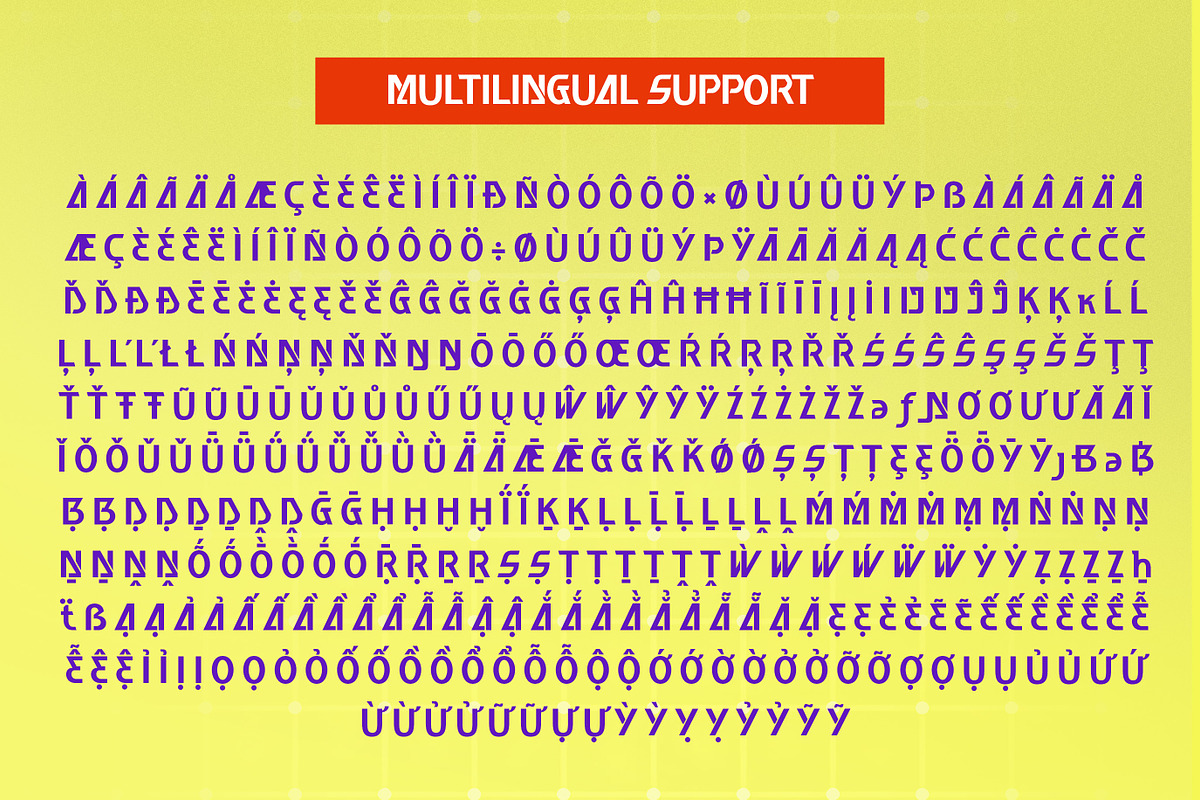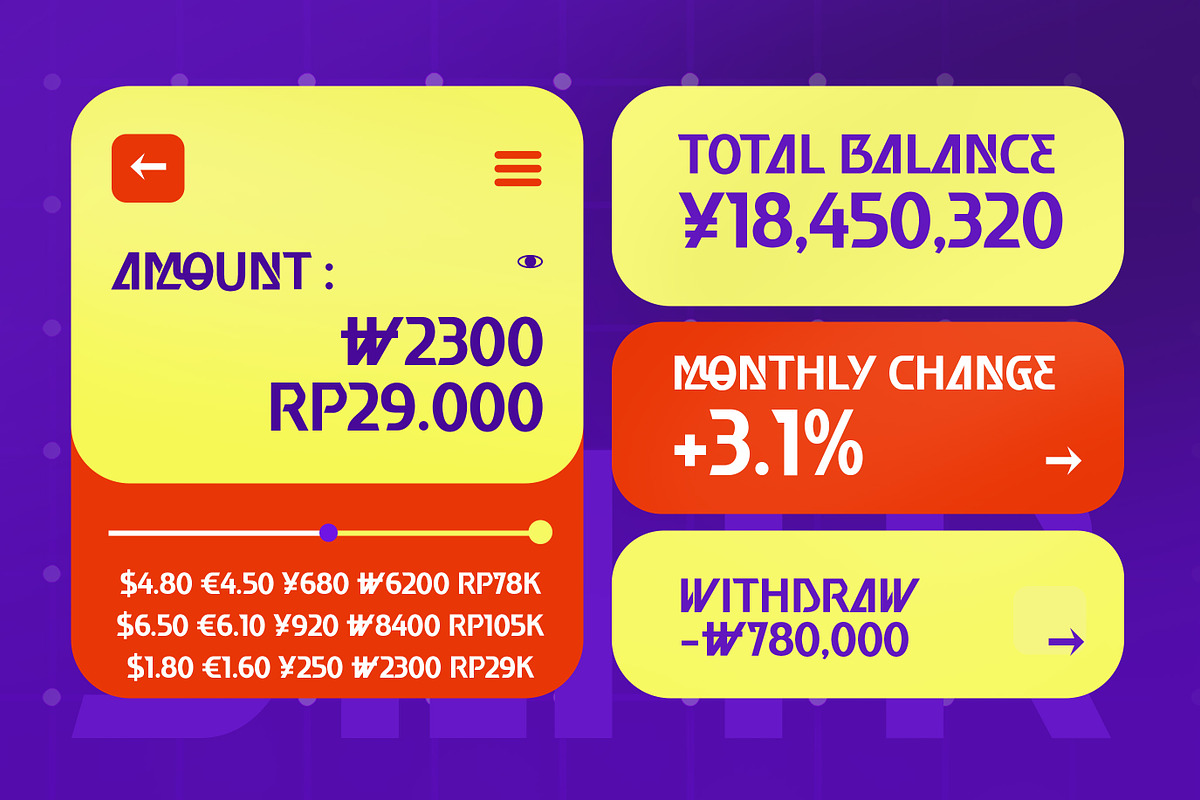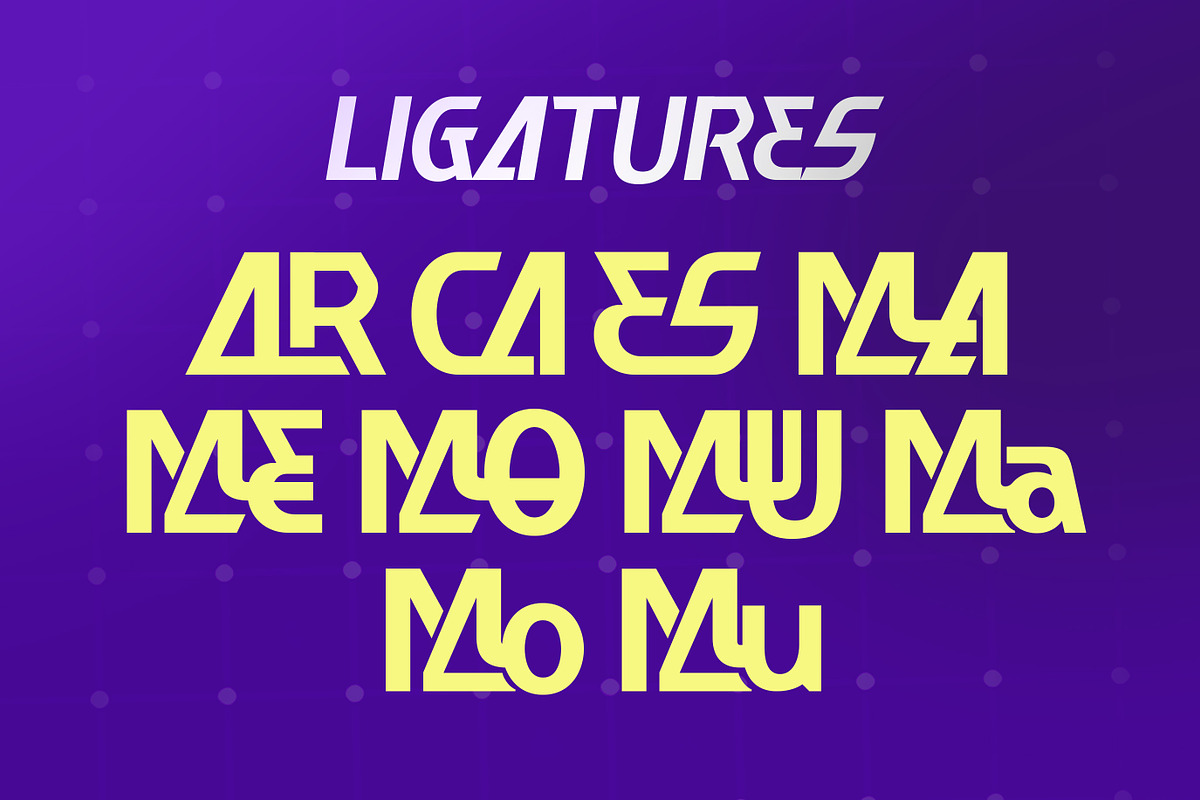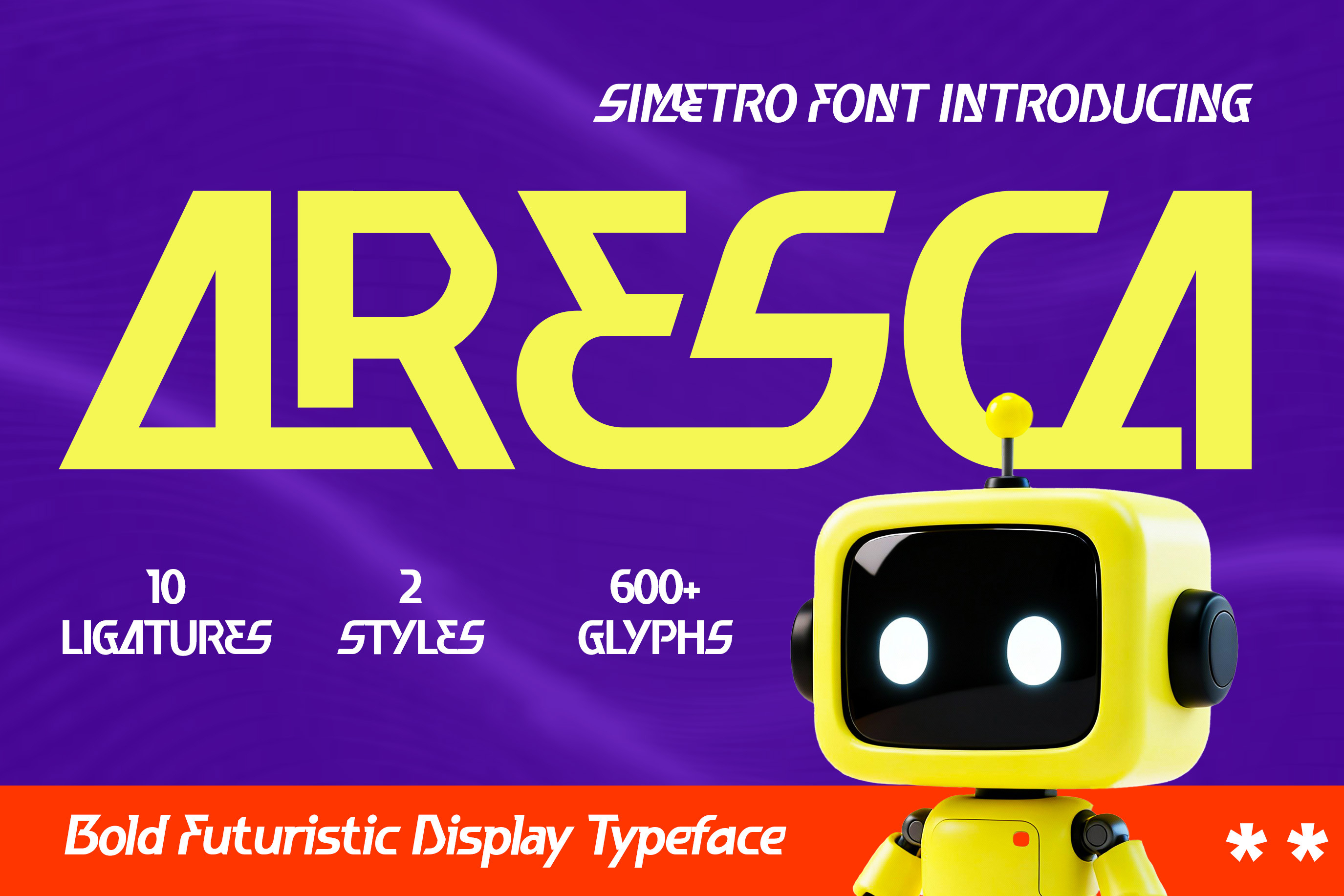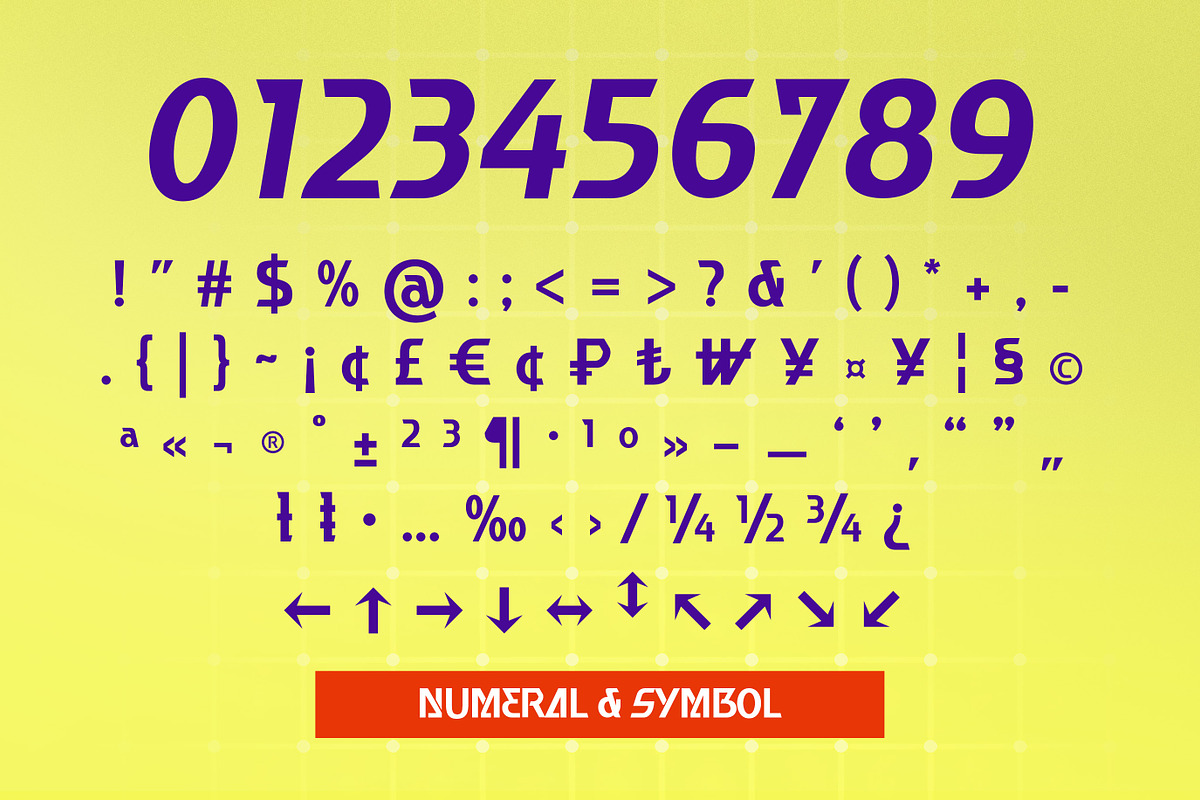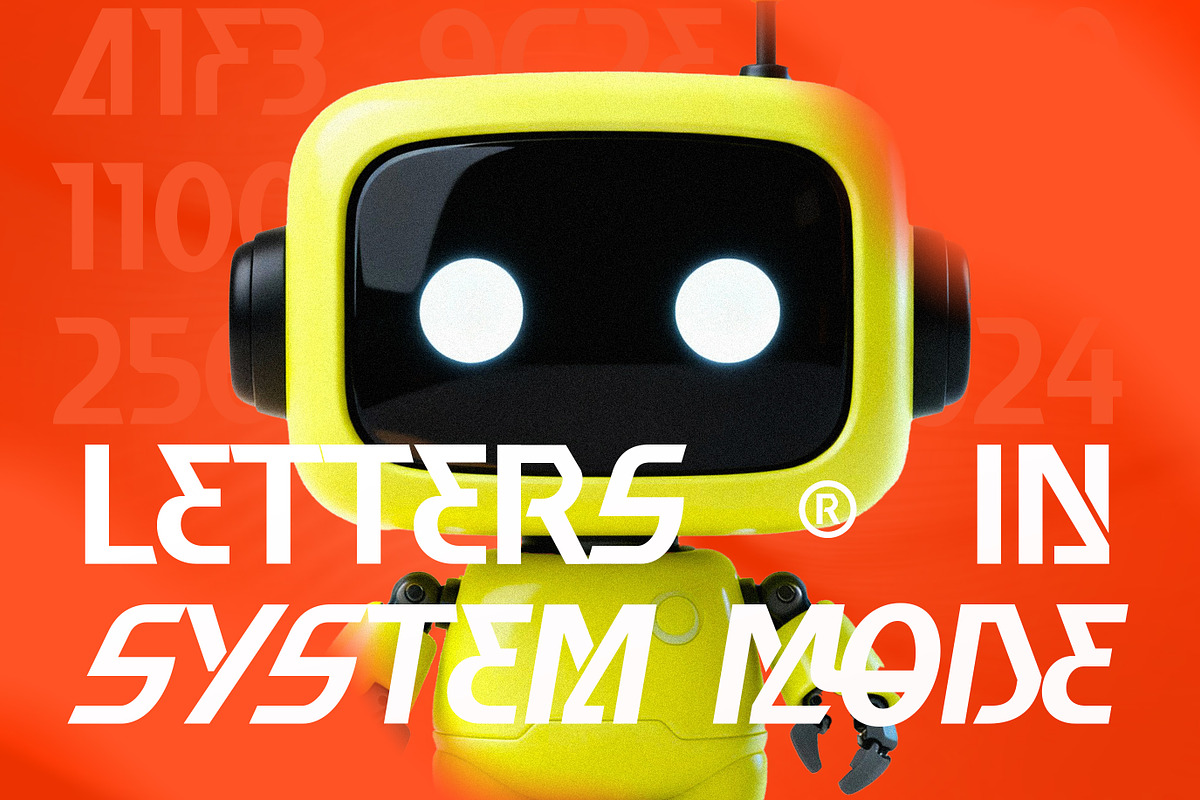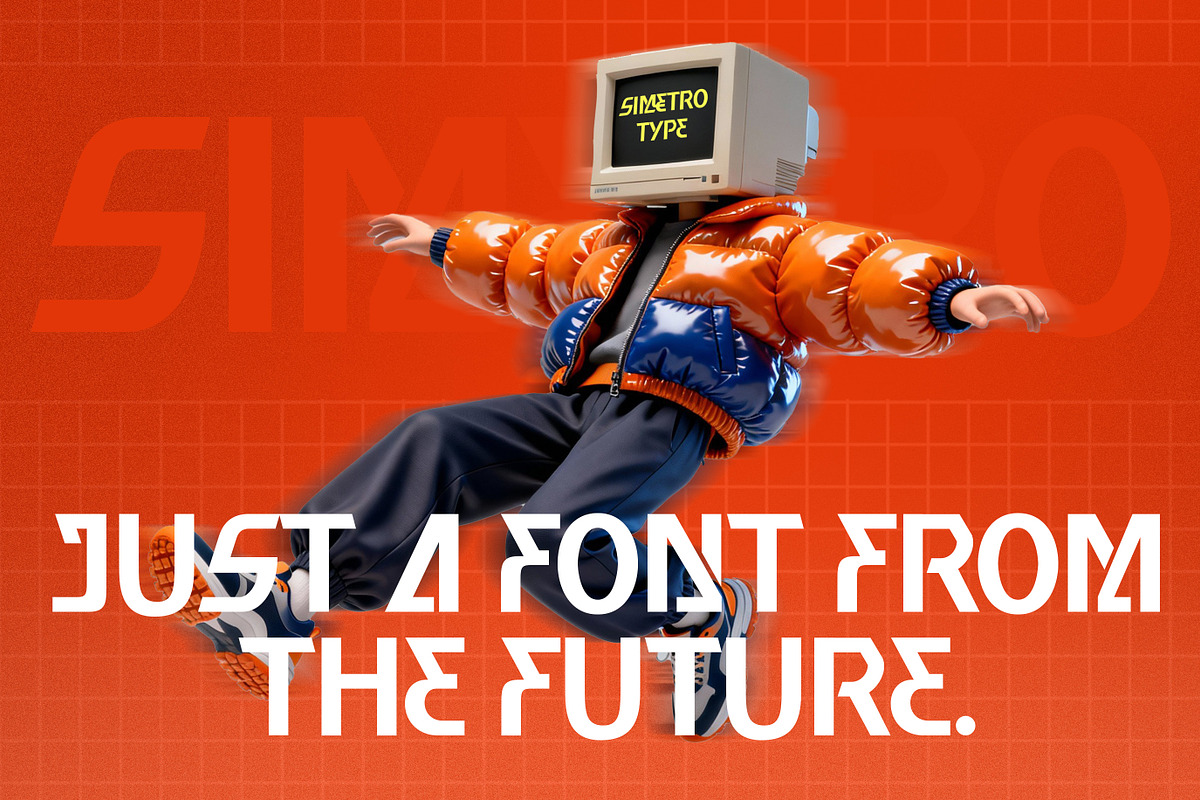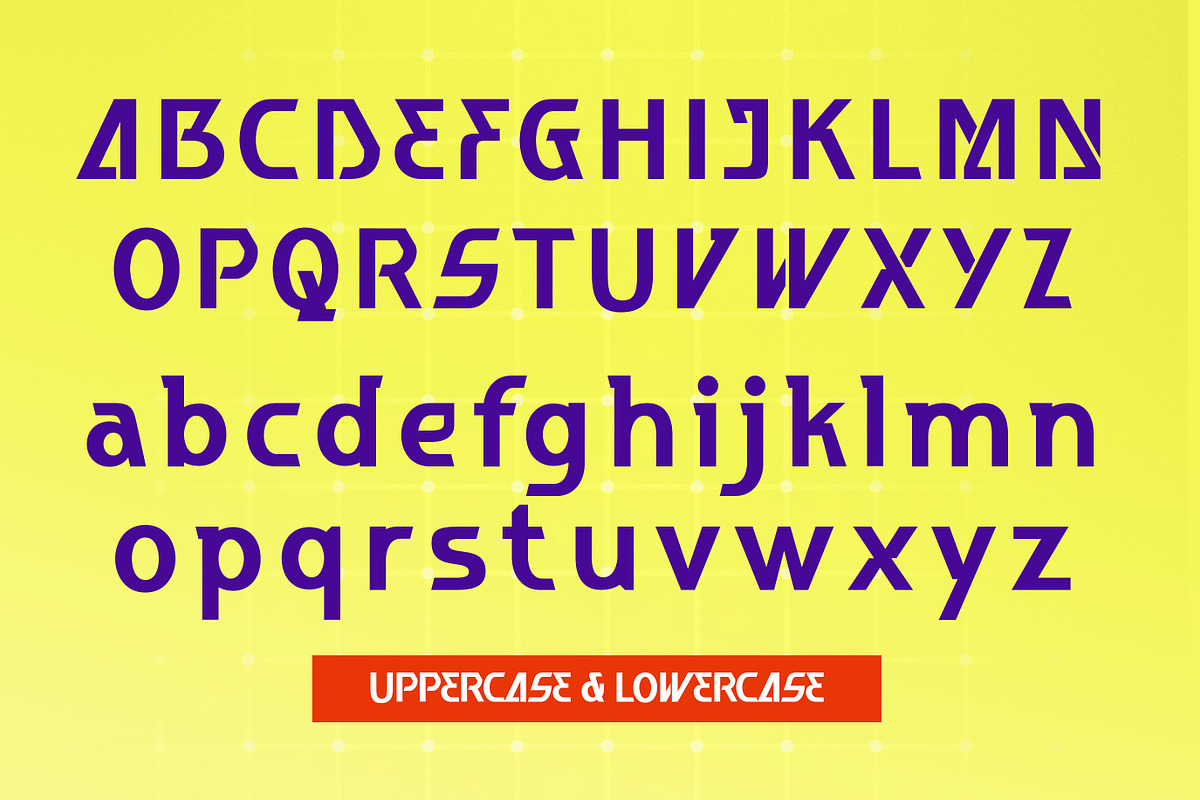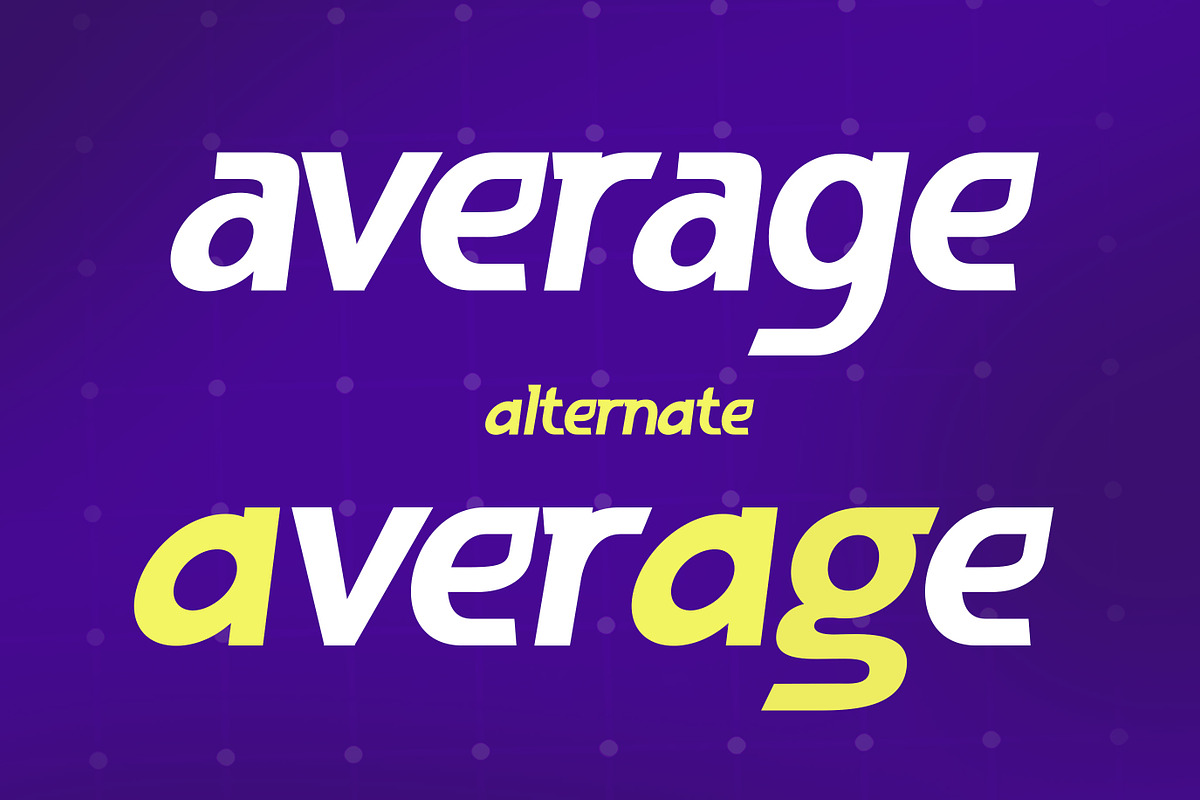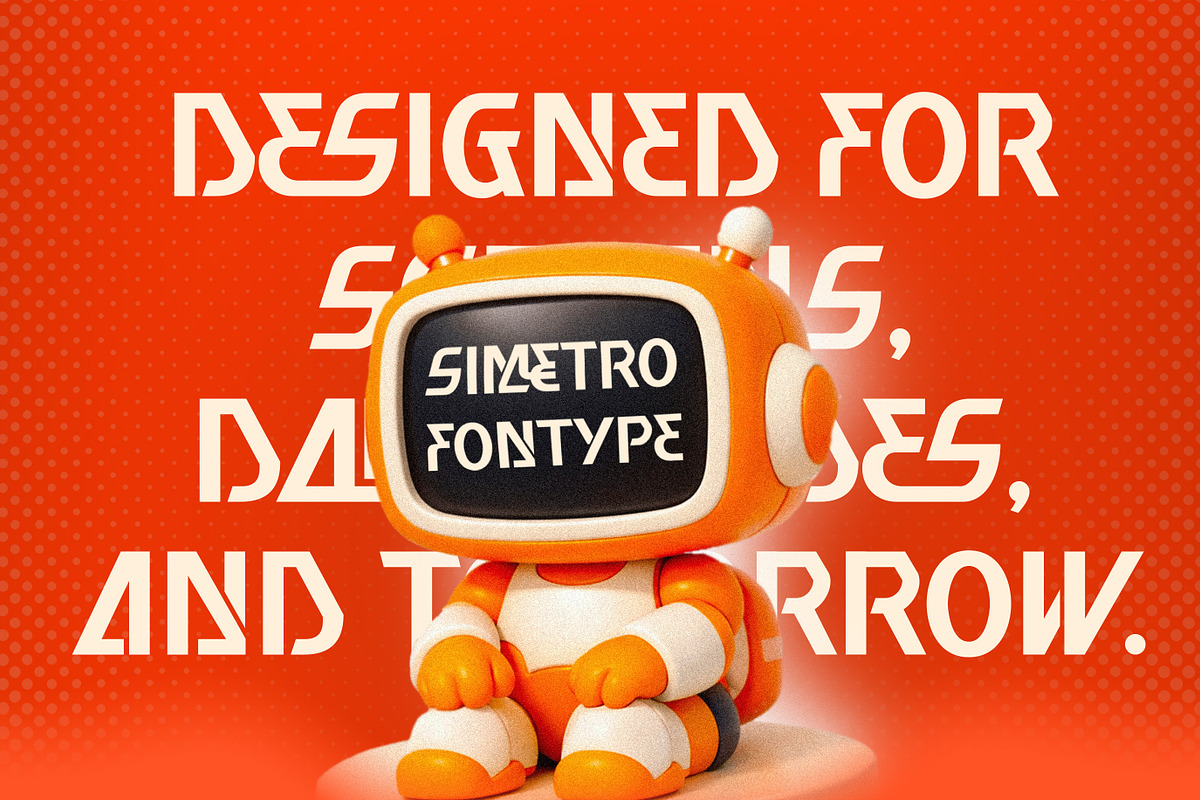
Aresca - Bold Futuristic Font
Aresca is a bold futuristic display font designed to deliver a strong, forward-looking visual identity. Built with sharp angles, geometric structures, and confident proportions, Aresca communicates innovation, energy, and modernity at a glance.
Inspired by sci-fi visuals, digital interfaces, and futuristic branding, Aresca works best in large sizes where its distinctive letterforms can stand out. The font feels powerful and experimental without becoming unreadable, making it suitable for posters, technology branding, gaming visuals, album covers, motion graphics, and promotional designs.